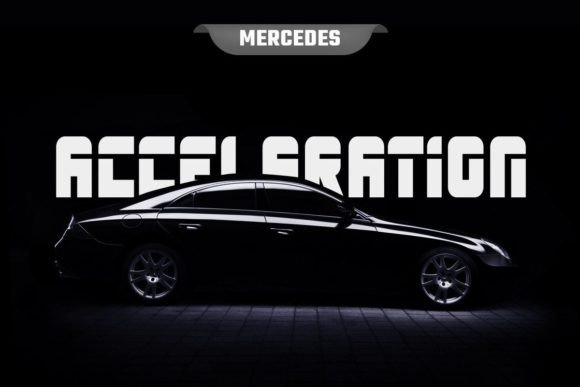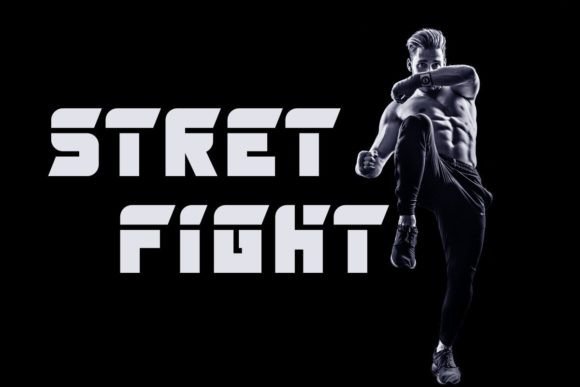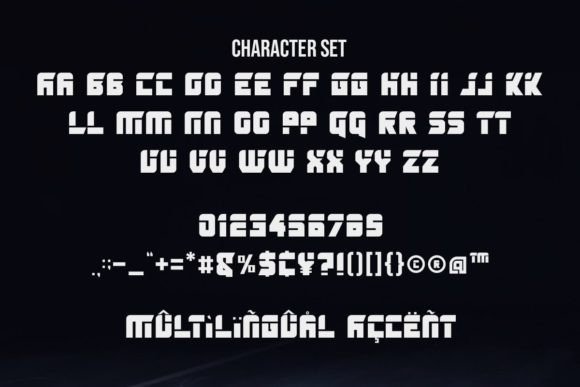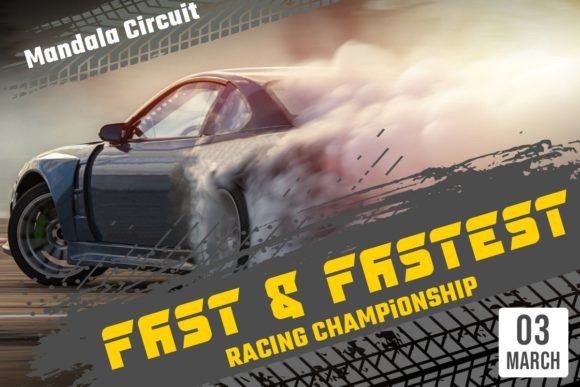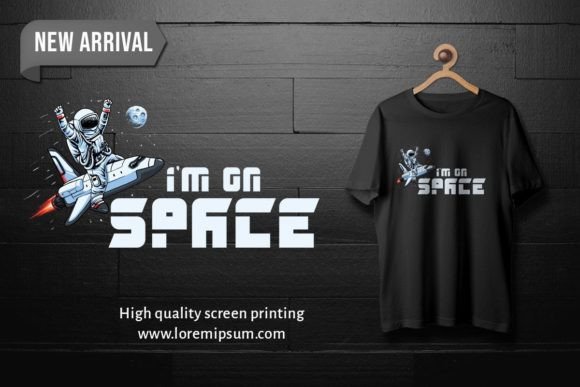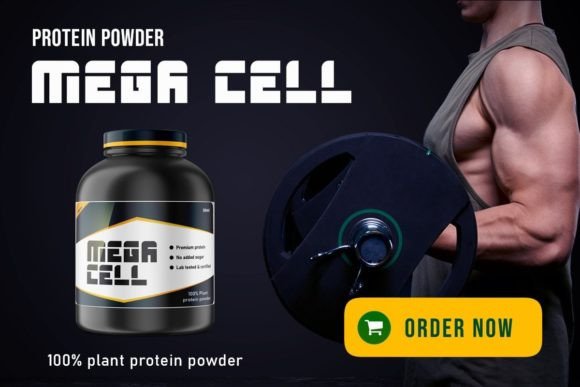
Amonus Font: Elevate Your Designs with a Modern and Simple Display Font
In the world of design, typography plays a crucial role in conveying messages, expressing creativity, and capturing attention. For designers and crafters seeking a unique touch for their projects, Amonus Font emerges as an excellent choice. This modern and simple display font is perfect for a wide range of applications, from logos and labels to posters and other creative endeavors. In this article, we’ll delve into the features, benefits, and uses of Amonus Font, exploring why it’s poised to become a favorite in your fonts library.
What is Amonus Font?
Amonus Font is a contemporary display font designed to make a statement. Its clean lines, simple shapes, and modern aesthetic make it an ideal choice for projects that demand a fresh and unique look. The font’s simplicity ensures versatility, allowing it to adapt seamlessly to various design contexts. Whether you’re working on a logo, a poster, or a label, Amonus Font provides a crisp and elegant solution.
Key Features of Amonus Font
- Modern and Simple Design: Amonus Font boasts a sleek and uncomplicated design, making it perfect for contemporary projects.
- High Versatility: Its simple yet distinctive style allows it to be used across various mediums, from digital platforms to print materials.
- Easy to Read: Despite its modernity, Amonus Font maintains excellent readability, ensuring your message is conveyed clearly.
- Unique Touch: The font adds a unique flair to any project, setting it apart from more traditional typography.
Benefits of Using Amonus Font
Choosing Amonus Font for your design projects comes with several advantages:
- Professional Look: The font’s modern design gives your projects a professional and polished appearance, enhancing your brand’s image.
Use Cases for Amonus Font
Amonus Font’s versatility shines through in its wide range of applications:
- Logos: Create memorable and impactful logos that stand out in any industry.
- Labels: Design eye-catching labels for products, files, or any item requiring a professional touch.
- Posters: Craft compelling posters for events, promotions, or informational campaigns.
- Creative Projects: Enhance your creative projects, such as brochures, flyers, and digital content, with a modern typographic style.
Amonus Font stands out as a modern, simple, and versatile display font suitable for a myriad of design needs. Its unique touch, combined with its readability and professional aesthetic, makes it an excellent addition to any designer’s or crafter’s font library. Whether you’re aiming to create striking logos, compelling posters, or distinctive labels, Amonus Font is poised to become your go-to choice. Embrace the simplicity and modernity of Amonus Font, and elevate your designs to new heights.